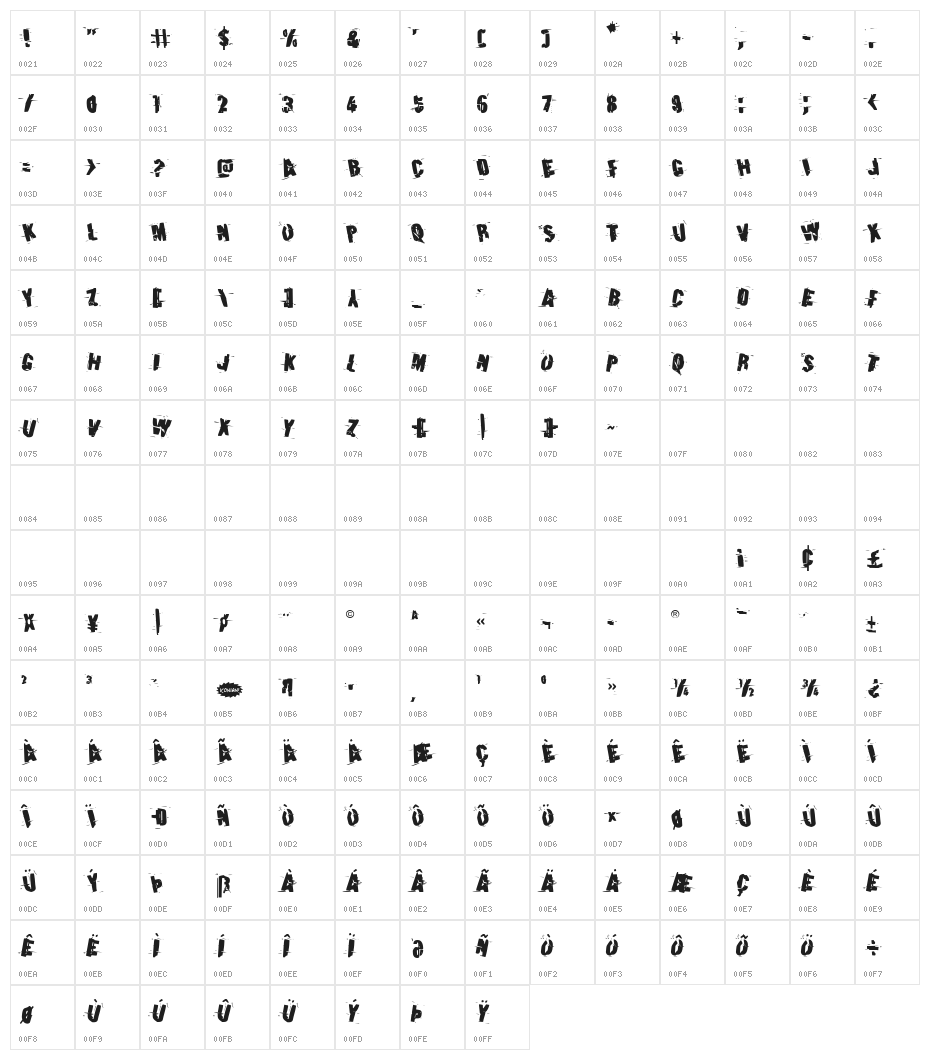
Earthshake Rotated Font
Earthshake Rotated Description
This font features a bold, distressed style with a grunge aesthetic. The characters appear as if they have been roughly painted or stamped, with irregular edges and a textured appearance. The letters are slightly rotated, adding to the chaotic and dynamic feel. This design gives off an edgy, rebellious vibe, making it suitable for projects that require a strong visual impact. The uppercase and lowercase letters maintain a consistent style, with numbers and special characters following the same distressed theme.
| Overall Style | Grunge, Edgy |
| Proposed Projects | Ideal for music album covers, poster designs, urban-themed branding, and any project needing a gritty, impactful look. |